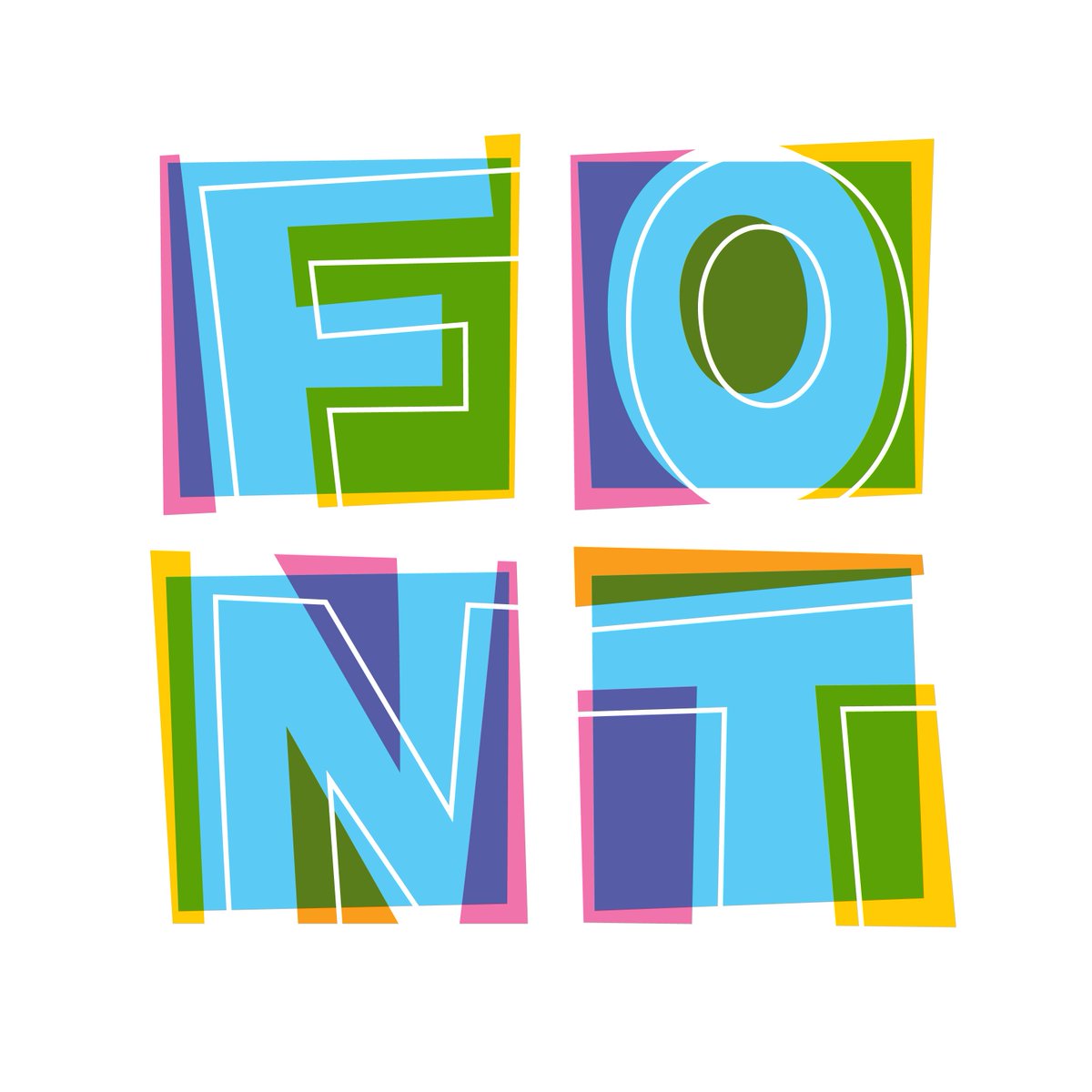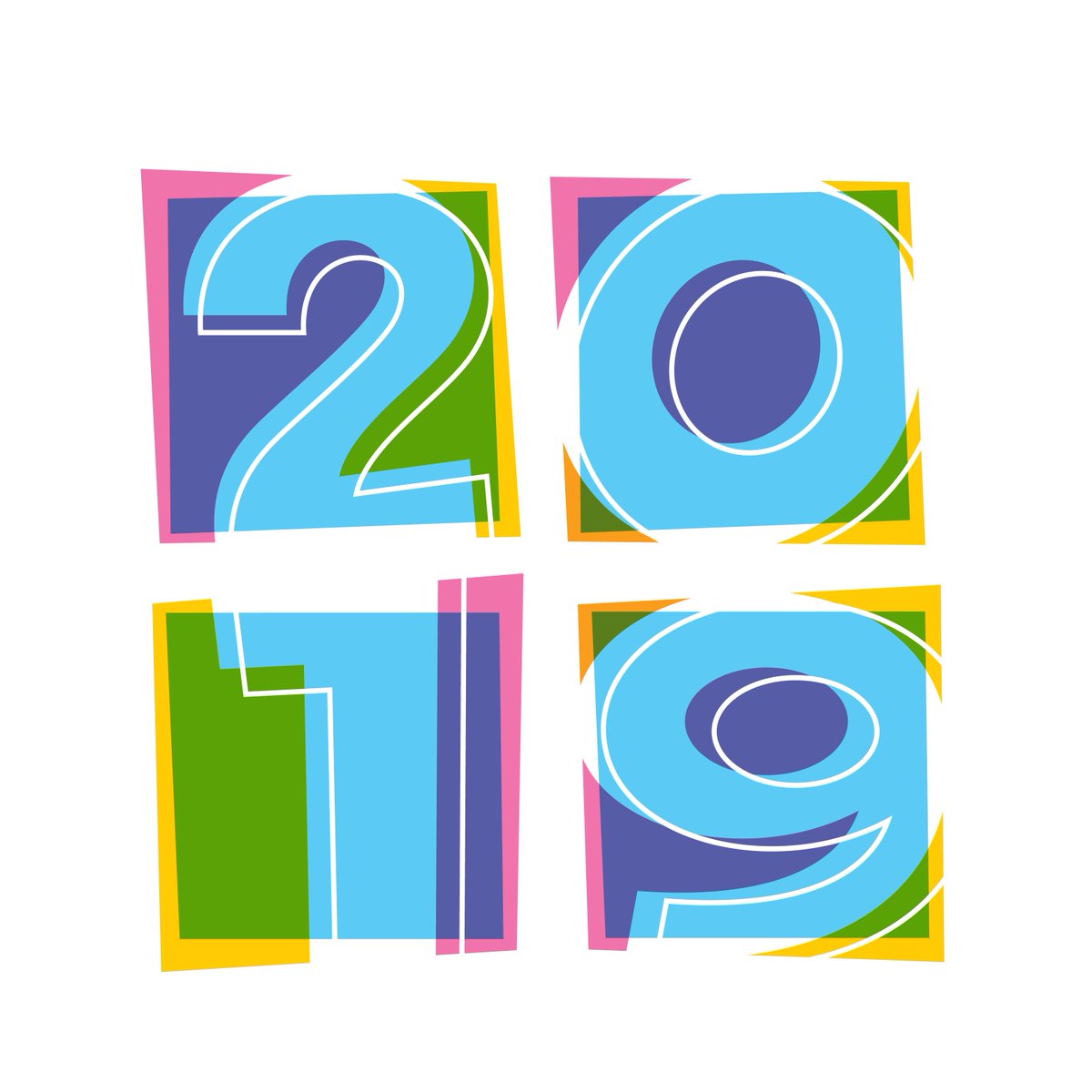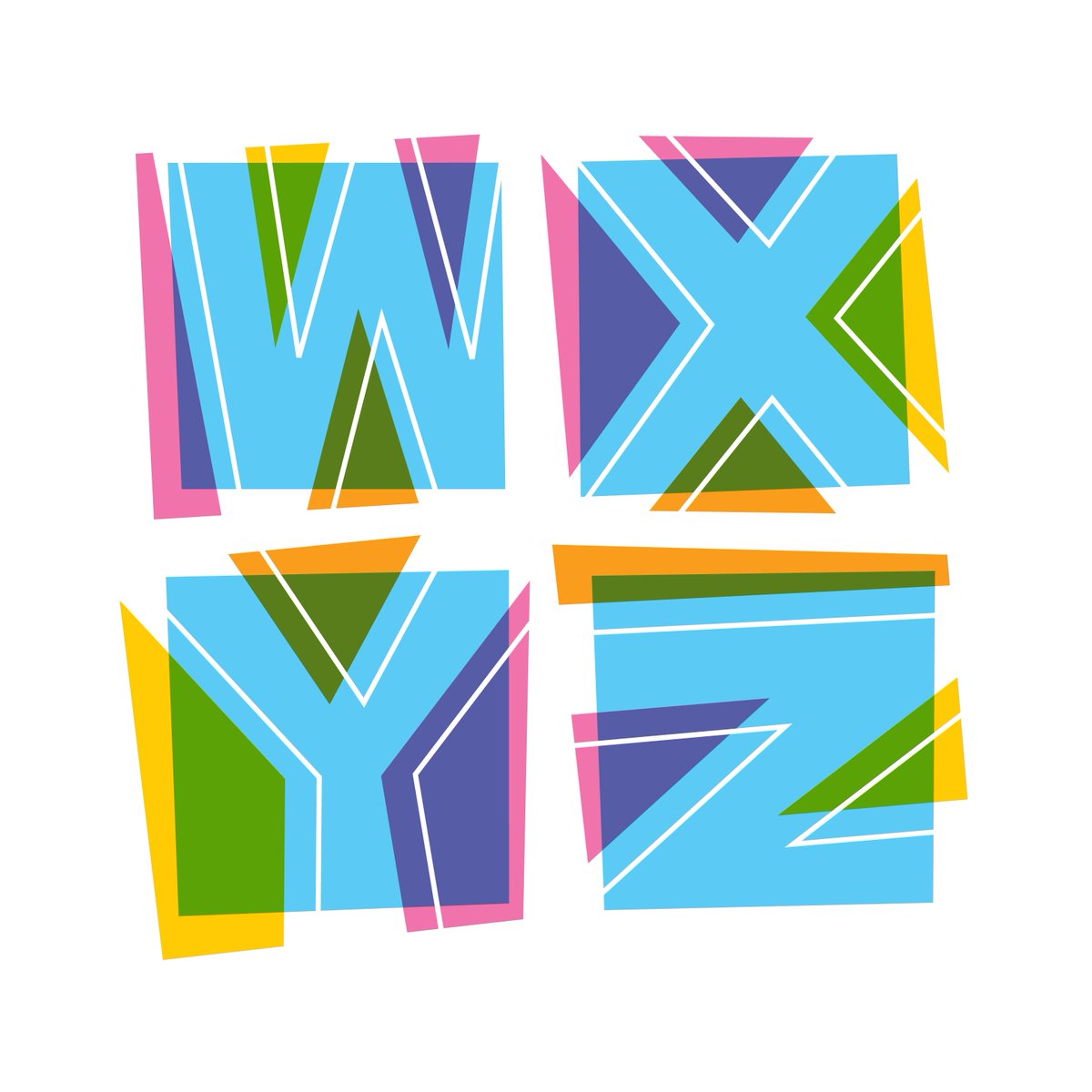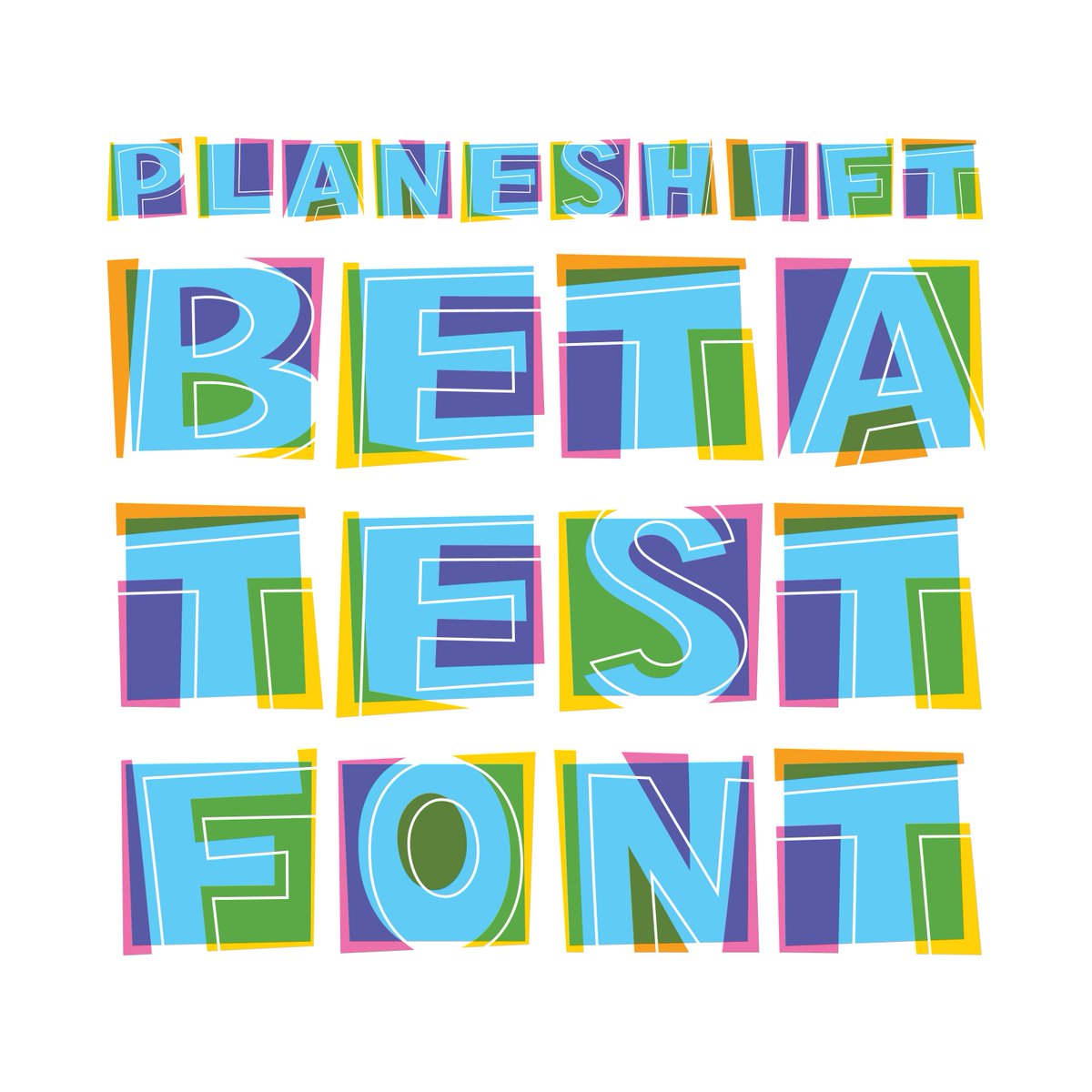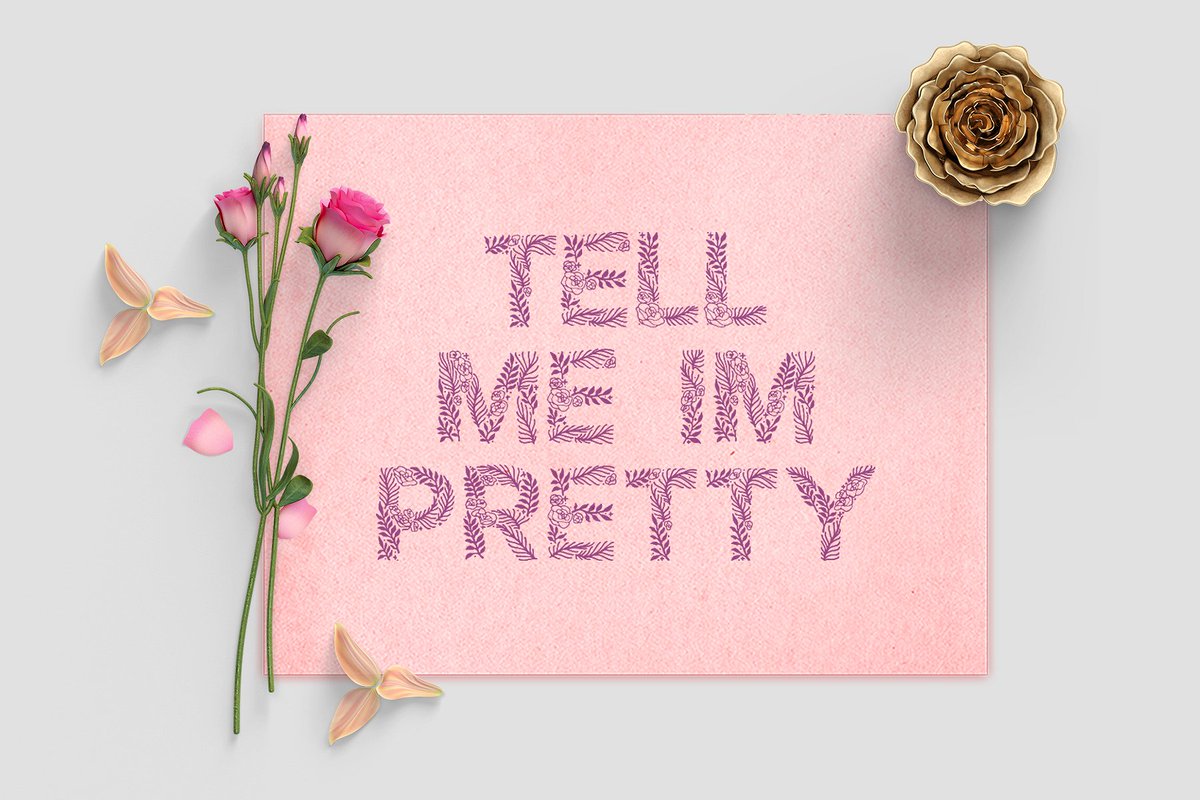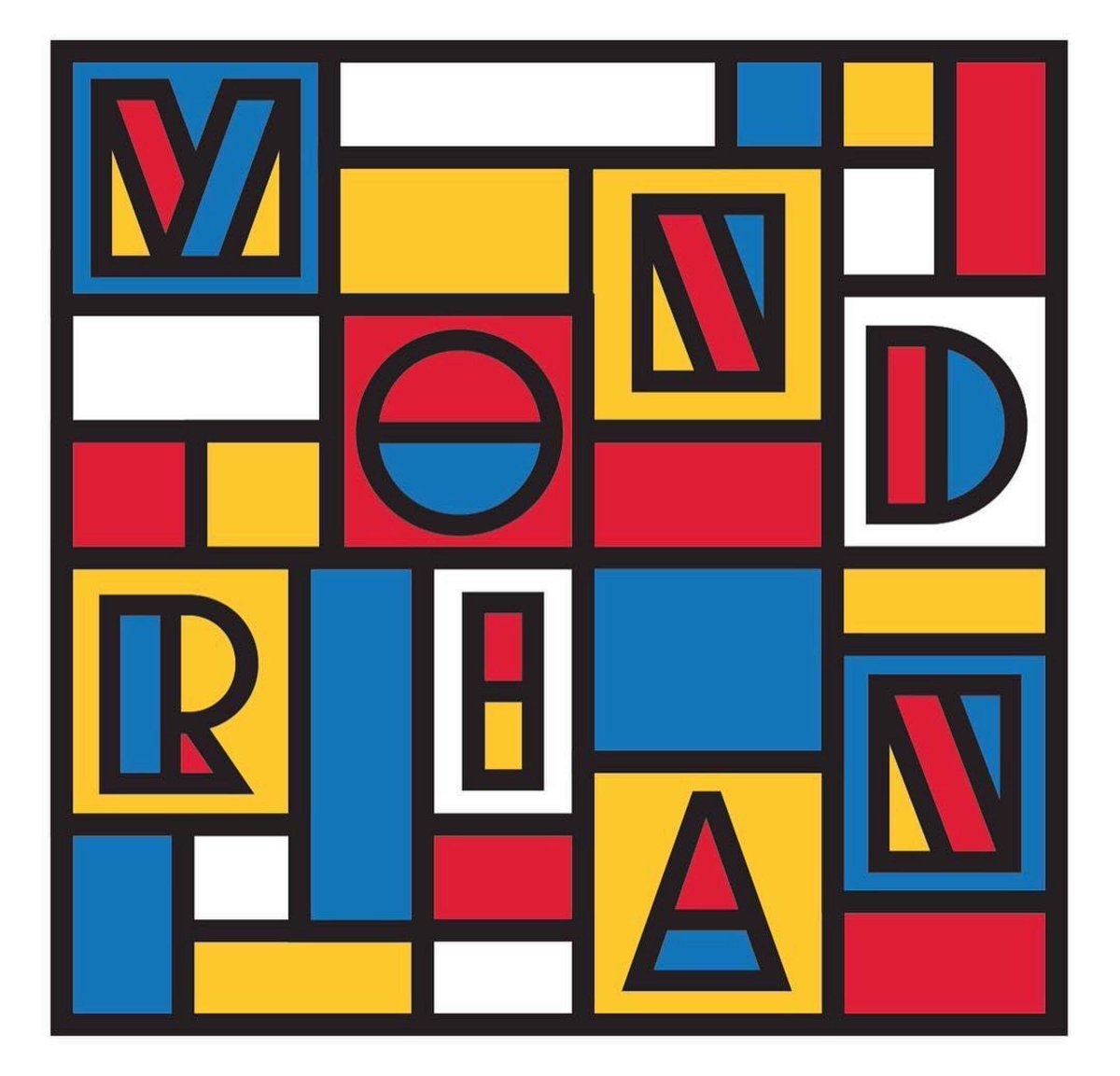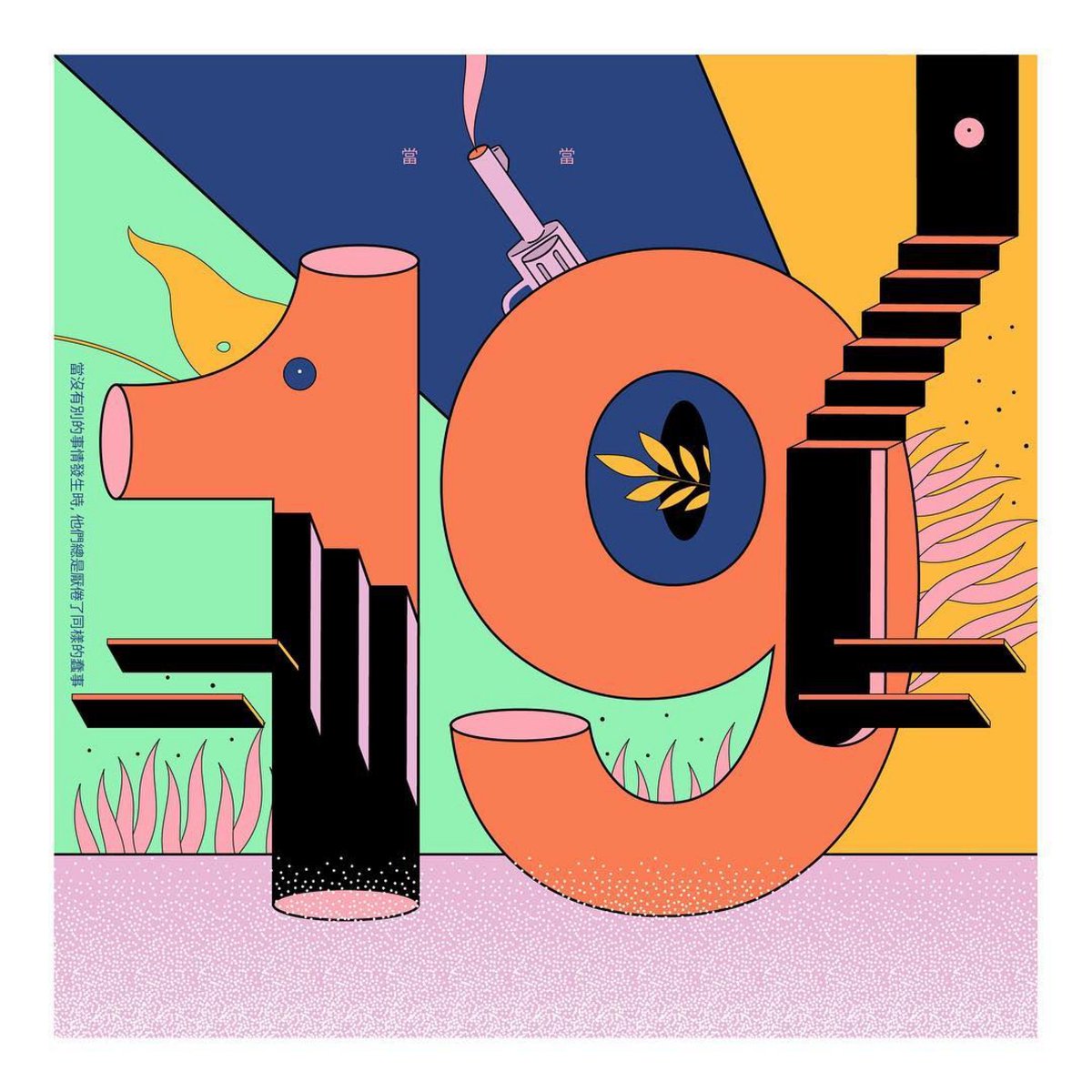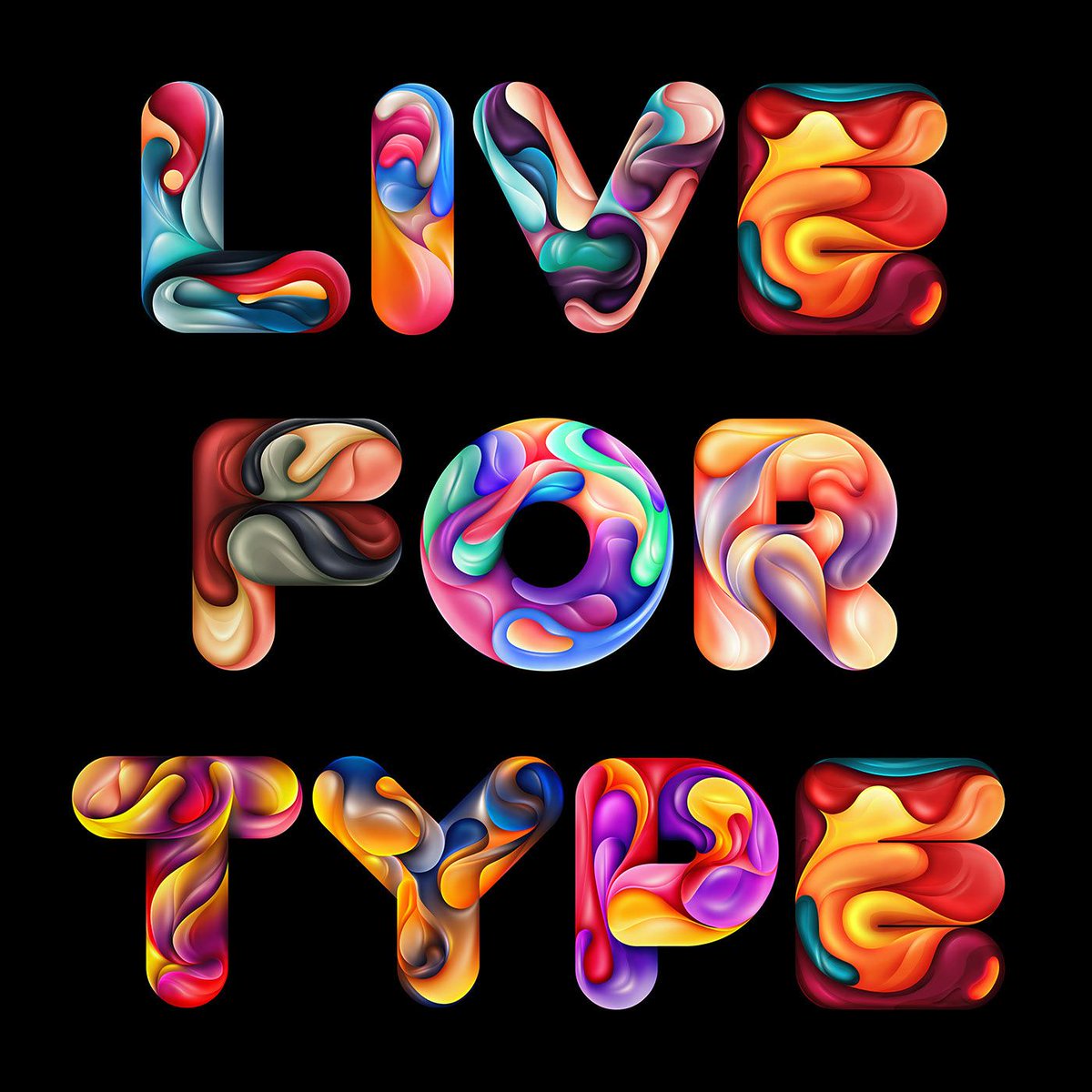
15+ Color Font Twitter PNG. Knowing what the different fonts and colors used by social networks are this article was updated in 2020 to show the newer fonts and colors used by social networks, including facebook, twitter. Franz hoffman @franzhoffman 15 февр. All im after now is to change the overall colors of the text within each tweet, not the links as i have changed this. I have set the theme to dark so that. The font color of the html code can be changed while in web page. Not only this, but the tool can also be used by other twitter name fonts users to add colour to their. Twitter color emoji svginot font. It can be done using style the twitter font was graphically changed to look more appealing. Use this twitter brand color scheme for digital or print projects that need to use specific color values to match their. To find out, test and download the. But the twitter fonts generated here also use a huge range of symbols that aren't actually semantically related to the latin alphabet, or arabic numerals. Managed to find ways to customize the twitter widget. The twitter colors consist of a primary color palette and secondary color palette. Utopian is a color font family based on primary colors and pure geometric shapes, influenced by bauhaus, de stijl and. A color and b&w emoji svginot font built from the twitter emoji for everyone artwork with support for zwj, skin tone diversity and country flags.
Fonts For Twitter Ððð ð жðð¹ Ыð¶ððð 94 Stylish Fonts. Not only this, but the tool can also be used by other twitter name fonts users to add colour to their. I have set the theme to dark so that. Franz hoffman @franzhoffman 15 февр. Utopian is a color font family based on primary colors and pure geometric shapes, influenced by bauhaus, de stijl and. To find out, test and download the. Twitter color emoji svginot font. The twitter colors consist of a primary color palette and secondary color palette. The font color of the html code can be changed while in web page. But the twitter fonts generated here also use a huge range of symbols that aren't actually semantically related to the latin alphabet, or arabic numerals. A color and b&w emoji svginot font built from the twitter emoji for everyone artwork with support for zwj, skin tone diversity and country flags. It can be done using style the twitter font was graphically changed to look more appealing. Use this twitter brand color scheme for digital or print projects that need to use specific color values to match their. Managed to find ways to customize the twitter widget. All im after now is to change the overall colors of the text within each tweet, not the links as i have changed this. Knowing what the different fonts and colors used by social networks are this article was updated in 2020 to show the newer fonts and colors used by social networks, including facebook, twitter.
Twitter color emoji svginot font. If this is a new font name, choose a new password. I mean it has options where. How would they do this? I have set the theme to dark so that. Now brewing…font awesome 6 alpha! Twitter is an online news and social networking service where users post and interact with messages composed of up to 140 characters, now 280 characters.
Now brewing…font awesome 6 alpha! The font color of the html code can be changed while in web page. A color and b&w emoji svginot font built from the twitter emoji for everyone artwork with support for zwj, skin tone diversity and country flags. Knowing what the different fonts and colors used by social networks are this article was updated in 2020 to show the newer fonts and colors used by social networks, including facebook, twitter. Is it accurate to say that they are alchemists? Font generator & font changer is fun and handy, just copy these stylish beautiful design text and paste them anywhere such as in facebook, twitter, whatsapp, snapchat, instagram bio. Use this twitter brand color scheme for digital or print projects that need to use specific color values to match their. On our website you can generate almost unlimited different types of fancy texts, our website is not limited to certain stylish text fonts it has the ability to generate unlimited. Download the free font replicating the twitter logo and many more at the original famous home » companies & organizations » twitter. I have set the theme to dark so that. Free icons of twitter in color style. Utopian is a color font family based on primary colors and pure geometric shapes, influenced by bauhaus, de stijl and. To find out, test and download the. Every font is free to download! Pico black by maniackers design. But the twitter fonts generated here also use a huge range of symbols that aren't actually semantically related to the latin alphabet, or arabic numerals. It can be done using style the twitter font was graphically changed to look more appealing. Html color codes, color names, and color chart with all hexadecimal, rgb, hsl, color ranges, and swatches. Download icons in all formats or edit them for your design. You can match these parts of your profile to yourtwitter. Franz hoffman @franzhoffman 15 февр. Available in png and vector. All im after now is to change the overall colors of the text within each tweet, not the links as i have changed this. Twitter allows you to customize your twitter profile by changing the colors of the background, text, links, side bar and side bar border. Twitter is an online news and social networking service where users post and interact with messages composed of up to 140 characters, now 280 characters. A font based on the. Please don't reuse an important. Twitter color emoji svginot font. Html color codes are hexadecimal triplets representing the colors red, green, and blue. The term font actually refers to a set of graphics that correspond to some or all of the unicode glyphs. Managed to find ways to customize the twitter widget.
Twitter 00acee Hex Color Code Rgb And Paints. It can be done using style the twitter font was graphically changed to look more appealing. All im after now is to change the overall colors of the text within each tweet, not the links as i have changed this. Franz hoffman @franzhoffman 15 февр. I have set the theme to dark so that. Managed to find ways to customize the twitter widget. Not only this, but the tool can also be used by other twitter name fonts users to add colour to their. To find out, test and download the. Knowing what the different fonts and colors used by social networks are this article was updated in 2020 to show the newer fonts and colors used by social networks, including facebook, twitter. Utopian is a color font family based on primary colors and pure geometric shapes, influenced by bauhaus, de stijl and. Use this twitter brand color scheme for digital or print projects that need to use specific color values to match their. But the twitter fonts generated here also use a huge range of symbols that aren't actually semantically related to the latin alphabet, or arabic numerals. The font color of the html code can be changed while in web page. A color and b&w emoji svginot font built from the twitter emoji for everyone artwork with support for zwj, skin tone diversity and country flags. The twitter colors consist of a primary color palette and secondary color palette. Twitter color emoji svginot font.
Colorfonts Hashtag On Twitter. I have set the theme to dark so that. Use this twitter brand color scheme for digital or print projects that need to use specific color values to match their. But the twitter fonts generated here also use a huge range of symbols that aren't actually semantically related to the latin alphabet, or arabic numerals. The font color of the html code can be changed while in web page. To find out, test and download the. Not only this, but the tool can also be used by other twitter name fonts users to add colour to their. It can be done using style the twitter font was graphically changed to look more appealing. Knowing what the different fonts and colors used by social networks are this article was updated in 2020 to show the newer fonts and colors used by social networks, including facebook, twitter. Twitter color emoji svginot font. A color and b&w emoji svginot font built from the twitter emoji for everyone artwork with support for zwj, skin tone diversity and country flags. Franz hoffman @franzhoffman 15 февр. The twitter colors consist of a primary color palette and secondary color palette. Managed to find ways to customize the twitter widget. Utopian is a color font family based on primary colors and pure geometric shapes, influenced by bauhaus, de stijl and. All im after now is to change the overall colors of the text within each tweet, not the links as i have changed this.
Utopian is a color font family based on primary colors and pure geometric shapes, influenced by bauhaus, de stijl and.
Colorfont Hashtag On Twitter. I have set the theme to dark so that. Twitter color emoji svginot font. Utopian is a color font family based on primary colors and pure geometric shapes, influenced by bauhaus, de stijl and. A color and b&w emoji svginot font built from the twitter emoji for everyone artwork with support for zwj, skin tone diversity and country flags. To find out, test and download the. Use this twitter brand color scheme for digital or print projects that need to use specific color values to match their. Not only this, but the tool can also be used by other twitter name fonts users to add colour to their. But the twitter fonts generated here also use a huge range of symbols that aren't actually semantically related to the latin alphabet, or arabic numerals. The font color of the html code can be changed while in web page. The twitter colors consist of a primary color palette and secondary color palette. It can be done using style the twitter font was graphically changed to look more appealing. Franz hoffman @franzhoffman 15 февр. Managed to find ways to customize the twitter widget. All im after now is to change the overall colors of the text within each tweet, not the links as i have changed this. Knowing what the different fonts and colors used by social networks are this article was updated in 2020 to show the newer fonts and colors used by social networks, including facebook, twitter.
Html color codes are hexadecimal triplets representing the colors red, green, and blue.
Color Fonts Wtf Colorfontswtf Twitter. It can be done using style the twitter font was graphically changed to look more appealing. Utopian is a color font family based on primary colors and pure geometric shapes, influenced by bauhaus, de stijl and. Knowing what the different fonts and colors used by social networks are this article was updated in 2020 to show the newer fonts and colors used by social networks, including facebook, twitter. Twitter color emoji svginot font. Use this twitter brand color scheme for digital or print projects that need to use specific color values to match their. I have set the theme to dark so that. Franz hoffman @franzhoffman 15 февр. Managed to find ways to customize the twitter widget. A color and b&w emoji svginot font built from the twitter emoji for everyone artwork with support for zwj, skin tone diversity and country flags. All im after now is to change the overall colors of the text within each tweet, not the links as i have changed this. The twitter colors consist of a primary color palette and secondary color palette. The font color of the html code can be changed while in web page. To find out, test and download the. Not only this, but the tool can also be used by other twitter name fonts users to add colour to their. But the twitter fonts generated here also use a huge range of symbols that aren't actually semantically related to the latin alphabet, or arabic numerals.
Twitter Fonts Generator Fontvilla. A color and b&w emoji svginot font built from the twitter emoji for everyone artwork with support for zwj, skin tone diversity and country flags. The twitter colors consist of a primary color palette and secondary color palette. But the twitter fonts generated here also use a huge range of symbols that aren't actually semantically related to the latin alphabet, or arabic numerals. Knowing what the different fonts and colors used by social networks are this article was updated in 2020 to show the newer fonts and colors used by social networks, including facebook, twitter. It can be done using style the twitter font was graphically changed to look more appealing. Franz hoffman @franzhoffman 15 февр. Use this twitter brand color scheme for digital or print projects that need to use specific color values to match their. Twitter color emoji svginot font. Utopian is a color font family based on primary colors and pure geometric shapes, influenced by bauhaus, de stijl and. Managed to find ways to customize the twitter widget. Not only this, but the tool can also be used by other twitter name fonts users to add colour to their. To find out, test and download the. All im after now is to change the overall colors of the text within each tweet, not the links as i have changed this. The font color of the html code can be changed while in web page. I have set the theme to dark so that.
Colorfonts Hashtag On Twitter. A color and b&w emoji svginot font built from the twitter emoji for everyone artwork with support for zwj, skin tone diversity and country flags. The font color of the html code can be changed while in web page. But the twitter fonts generated here also use a huge range of symbols that aren't actually semantically related to the latin alphabet, or arabic numerals. I have set the theme to dark so that. Twitter color emoji svginot font. The twitter colors consist of a primary color palette and secondary color palette. Not only this, but the tool can also be used by other twitter name fonts users to add colour to their. Franz hoffman @franzhoffman 15 февр. Utopian is a color font family based on primary colors and pure geometric shapes, influenced by bauhaus, de stijl and. Use this twitter brand color scheme for digital or print projects that need to use specific color values to match their. Knowing what the different fonts and colors used by social networks are this article was updated in 2020 to show the newer fonts and colors used by social networks, including facebook, twitter. Managed to find ways to customize the twitter widget. It can be done using style the twitter font was graphically changed to look more appealing. All im after now is to change the overall colors of the text within each tweet, not the links as i have changed this. To find out, test and download the.
Html color codes are hexadecimal triplets representing the colors red, green, and blue. But the twitter fonts generated here also use a huge range of symbols that aren't actually semantically related to the latin alphabet, or arabic numerals. A font based on the. Twitter color emoji svginot font. How would they do this? Use this twitter brand color scheme for digital or print projects that need to use specific color values to match their. It can be done using style the twitter font was graphically changed to look more appealing. Twitter is an online news and social networking service where users post and interact with messages composed of up to 140 characters, now 280 characters. If you're editing an existing font, then you must enter the password that was used when you created the font. The term font actually refers to a set of graphics that correspond to some or all of the unicode glyphs.